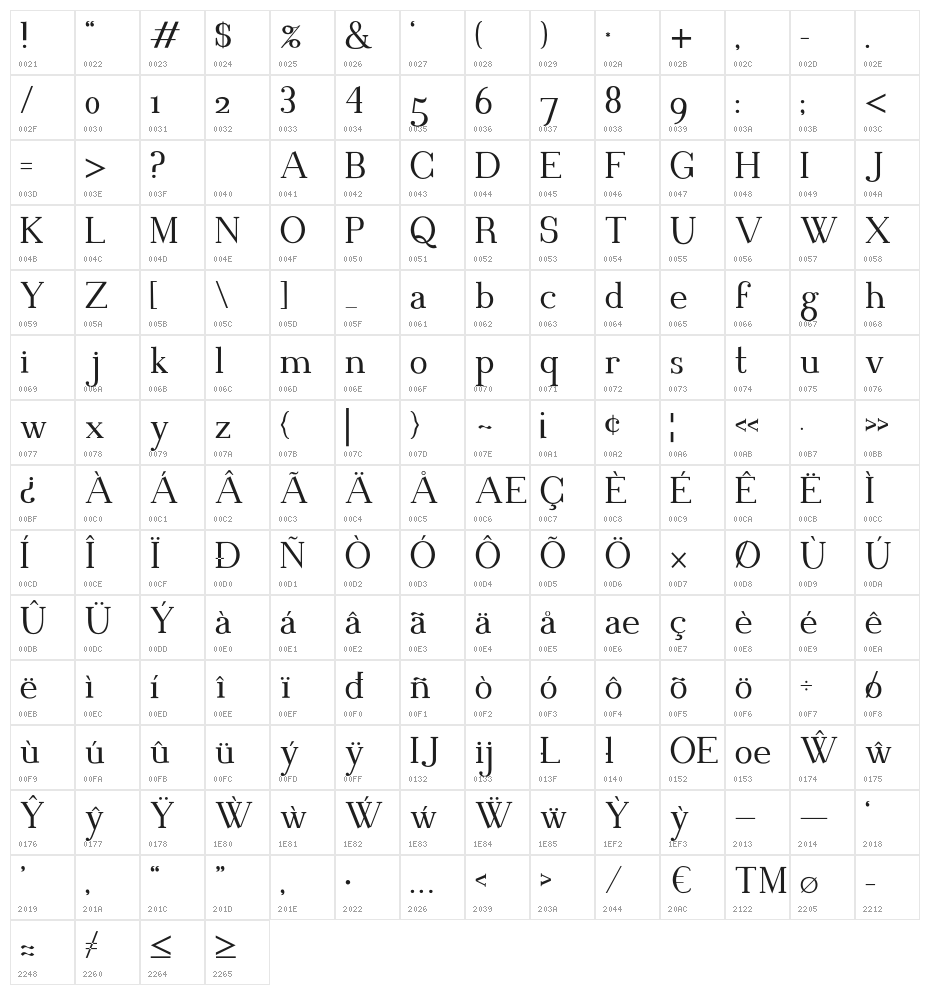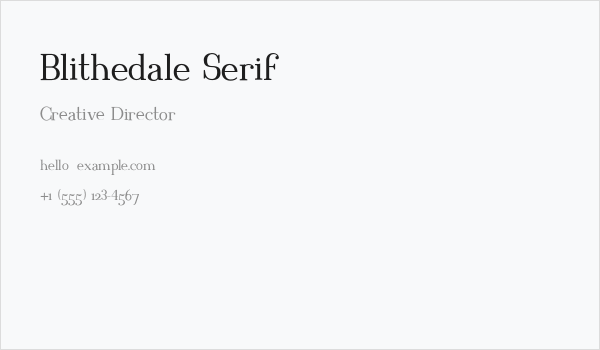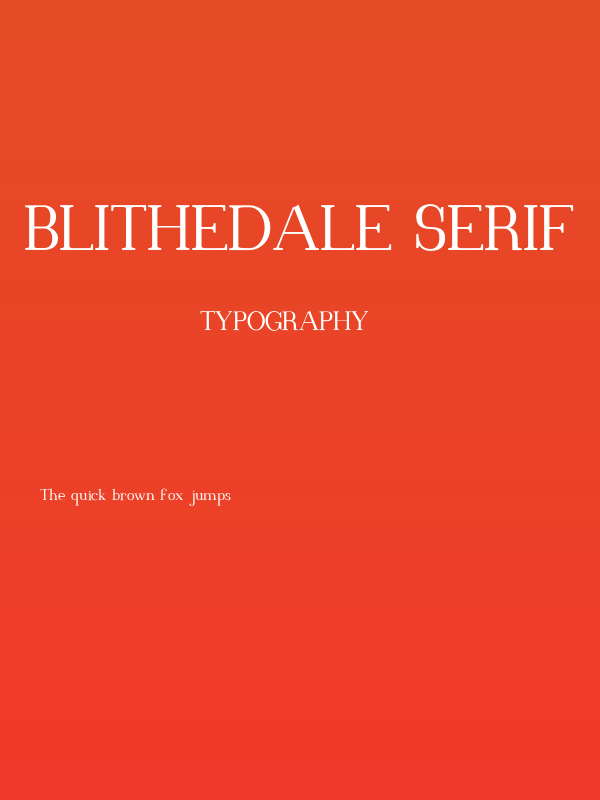
Blithedale Serif Font
Blithedale Serif Description
This serif typeface exudes a classic elegance with its refined and sophisticated design. The uppercase letters are tall and stately, featuring sharp serifs that add a touch of formality. The lowercase letters maintain a consistent style with a slightly more rounded appearance, providing a harmonious balance. The numerals are distinct and clear, ensuring readability. Special characters are crafted with the same attention to detail, making them suitable for a variety of uses. The overall design is timeless, making it ideal for projects that require a touch of class and tradition.
| Proposed Projects | Ideal for book covers, formal invitations, branding for luxury products, and editorial design. |